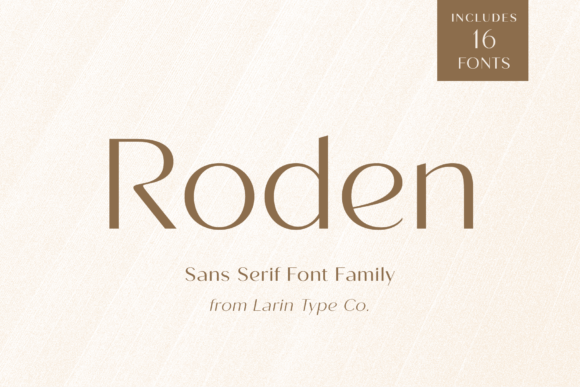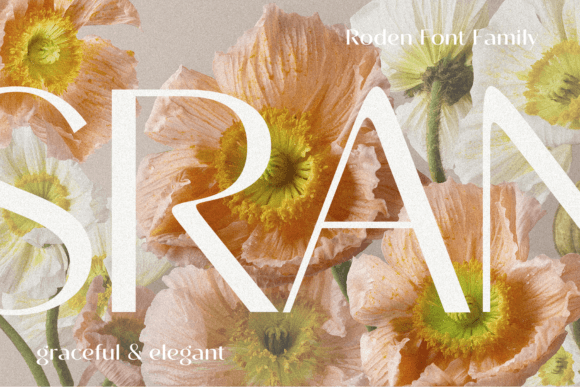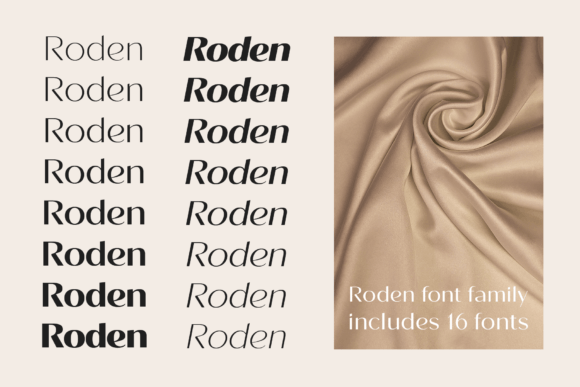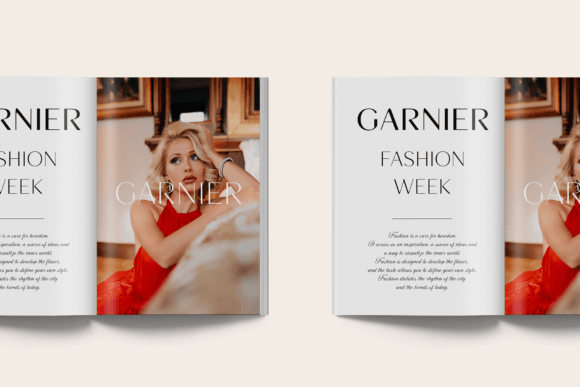
Roden Font: Elegant Sans Serif for Modern Logo Design & Branding
About the Roden Font
Meet Roden Font, a stunning font that brings a touch of elegance and professionalism to any design. Roden is an elegant and modern font family.
It includes eight weights from Thin to Bold and italics to them. This font is a multi-purpose font that is perfect for any project, it is contrasted, modern and easy to read. Thanks to its clean lines and balanced proportions, it has its own unique charm and charm. With it, you can create logos, use in advertising, packaging, branding, editorial design, and corporate projects, book covers, magazines, headings, descriptions and much more.
Roden’s elegant modernity shines brightest in headlines, branding applications, and short-form text such as posters or packaging. Its clean lines and balanced proportions make it highly legible for these uses. However, its refined aesthetics might prove less effective for lengthy body text or UI elements where readability over extended periods is crucial.
Pairing Roden successfully depends on the desired effect. For a sophisticated yet approachable feel, consider pairing it with a neutral sans-serif like Lato or Open Sans. To enhance its modern elegance, a classic serif like Garamond or a geometric sans-serif like Futura provides a strong contrast.
Roden projects a sophisticated, yet approachable personality. It’s ideal for brands aiming for a modern, refined image, particularly in luxury goods, fashion, or high-end services. Its versatility allows for applications across various media, provided the text length is appropriately managed.